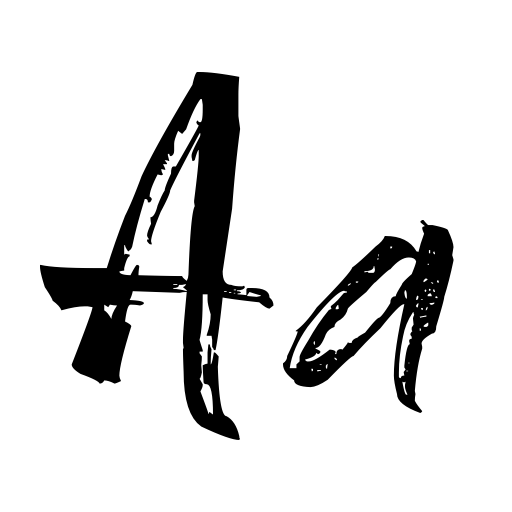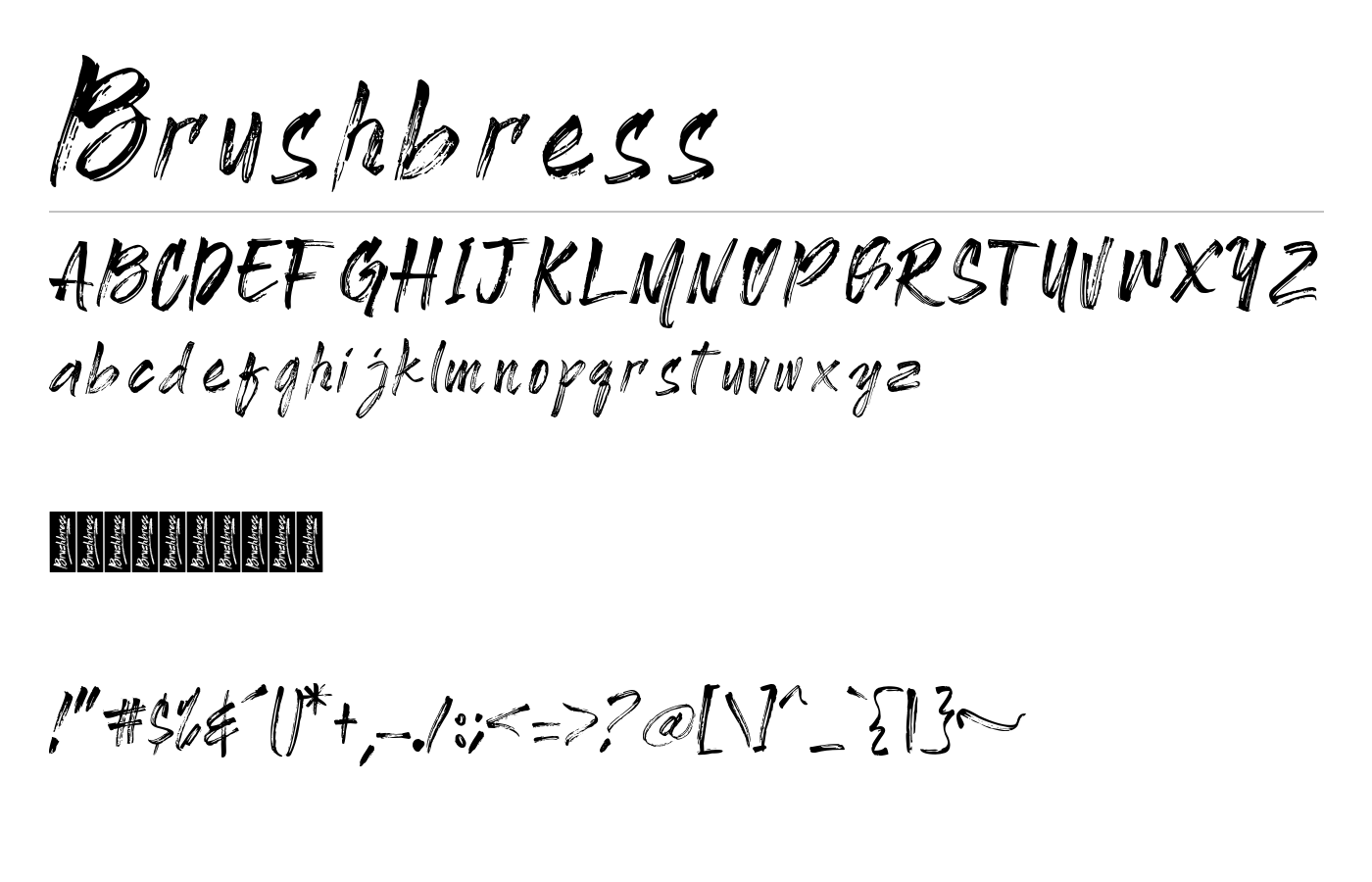
Brushbress is a bold, expressive brush script font with a raw, hand-painted texture that adds a lively, artistic flair to any design. Its uneven strokes and organic feel make it perfect for creative projects, casual branding, and eye-catching headlines that seek to convey energy and personality. This font works well for posters, logos, and editorial pieces where a dynamic, handcrafted look is desired.
Brushbress Font
About Brushbress Font
| Designer | zamjumpstudio 2020 - Zamzami Ahmad |